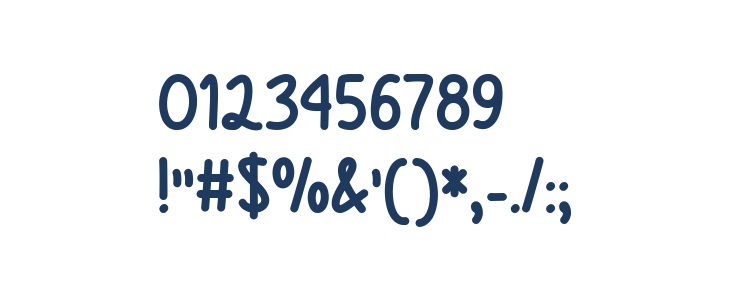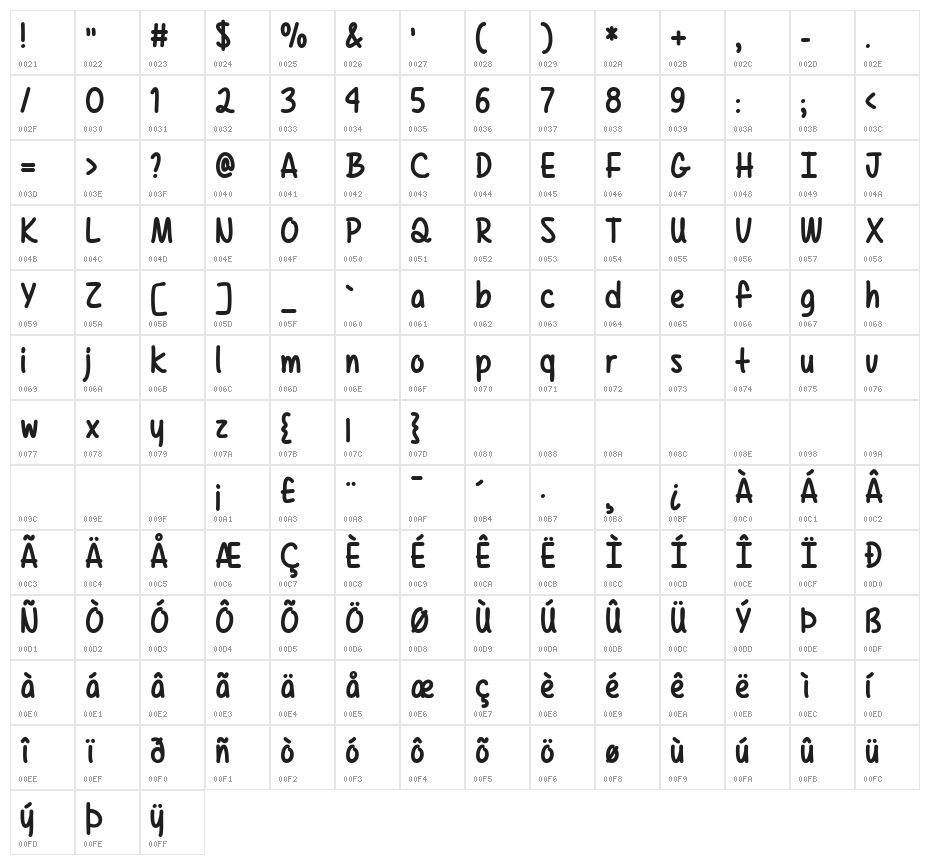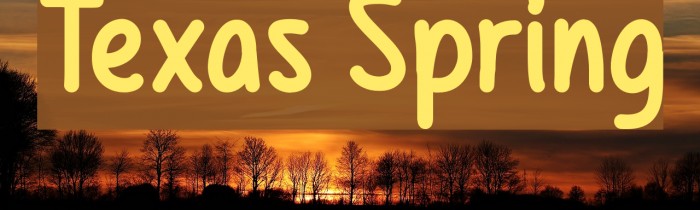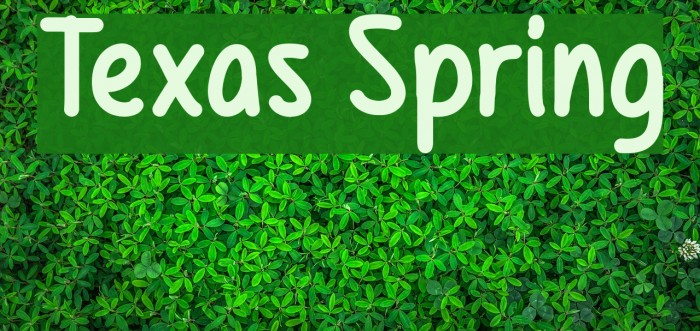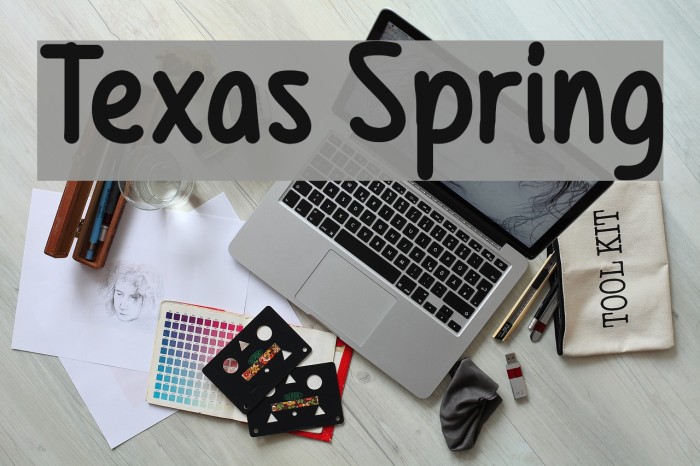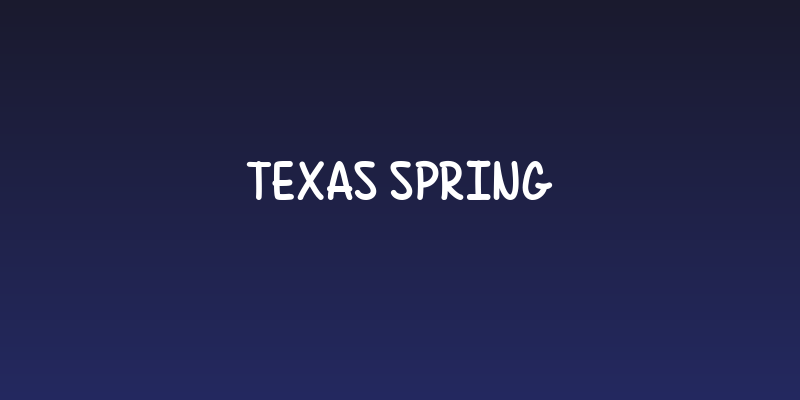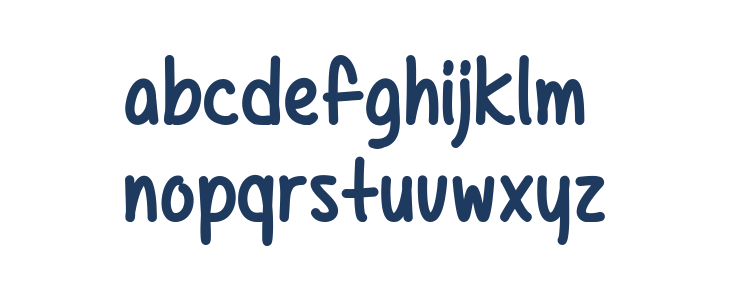
Texas Spring Font
Texas Spring Description
This font features a playful and casual handwritten style, characterized by its rounded and smooth letterforms. The strokes are consistent in width, giving it a uniform appearance. The letters have a slightly informal and friendly vibe, making it suitable for projects that require a personal touch. The uppercase and lowercase letters maintain a harmonious balance, while the numerals and special characters are designed to match the overall aesthetic. Its legibility and charm make it a versatile choice for various creative applications.
| Overall Style | Casual |
| Use Case | Headlines, Informal text, Creative projects |
| Proposed Projects | Ideal for greeting cards, children's books, casual branding, and social media graphics. |